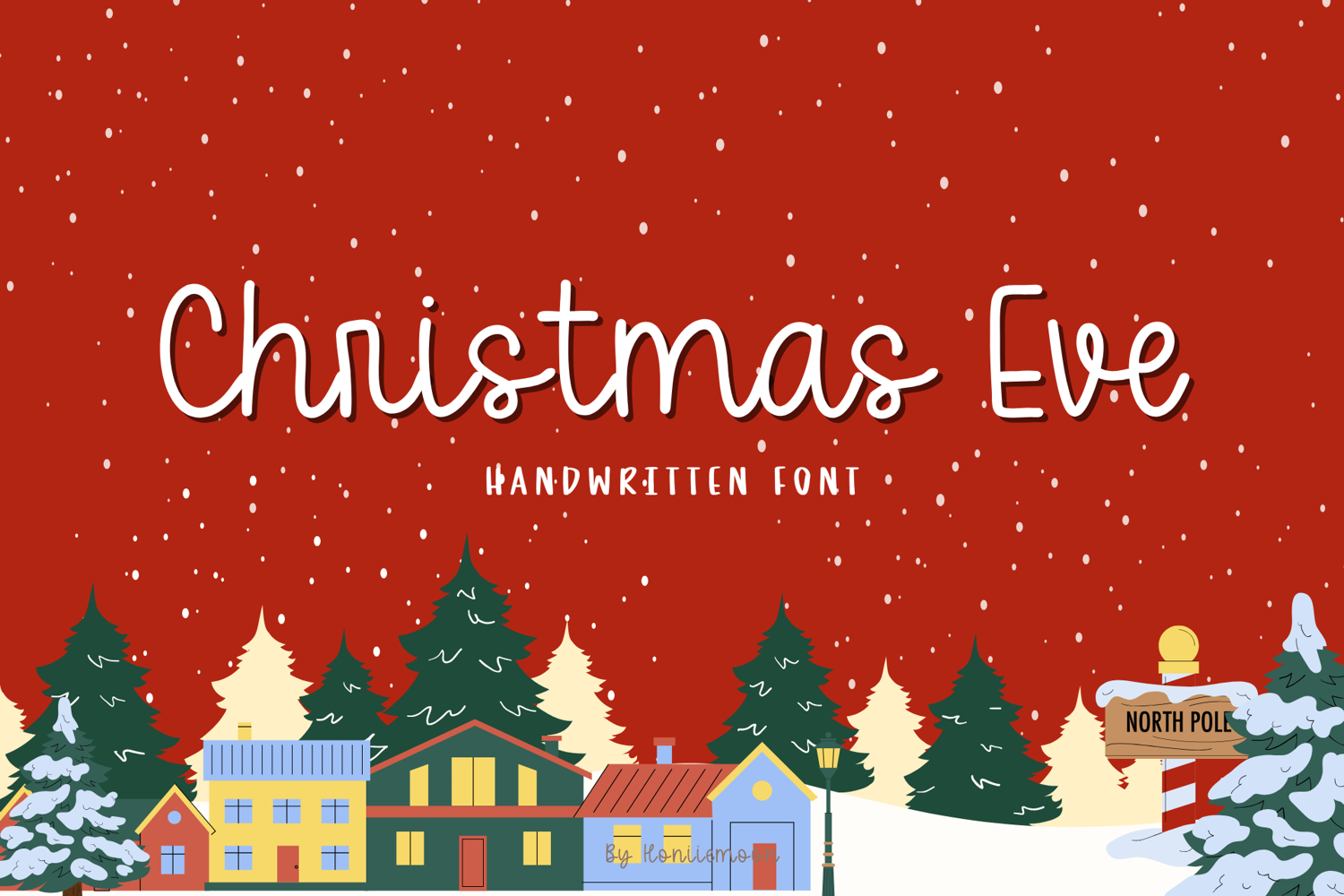
Bring cozy Christmas cheer to your designs with Christmas Eve Font — a playful handwritten typeface that captures the warmth and joy of the holiday season.
This font pairs beautifully with cozy illustrations and pastel or festive color palettes. Whether you’re creating for print-on-demand, DIY gifts, or digital downloads, Christmas Eve adds that magical handmade touch.